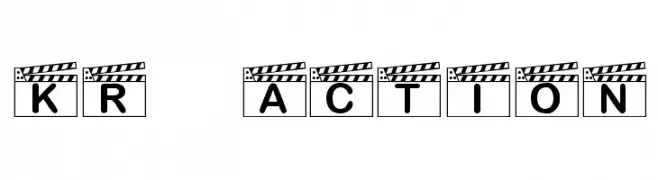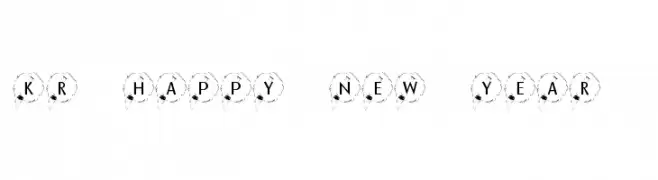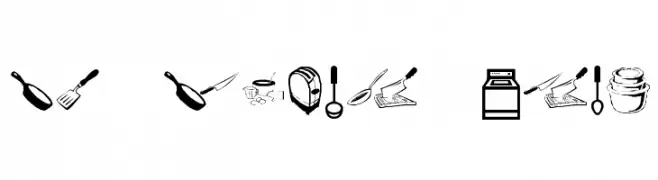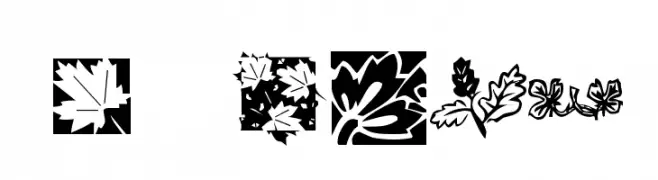
A Halloween-themed decorative font with pumpkin illustrations as glyphs.
A decorative font with sleigh motifs, perfect for festive designs.
A decorative collection of leaf-themed symbols and icons.
A decorative font with kitchen-themed icons for creative culinary projects.
A whimsical, decorative font with Valentine-themed doodles and playful illustrations.
A festive font with letters embedded in Christmas tree silhouettes.
A bold, cinematic font with characters inside clapperboard frames.
A decorative font with characters encased in festive wreaths, perfect for holiday themes.
A decorative font with swirling, floral motifs and high contrast strokes.
Ornate decorative font with clover patterns.